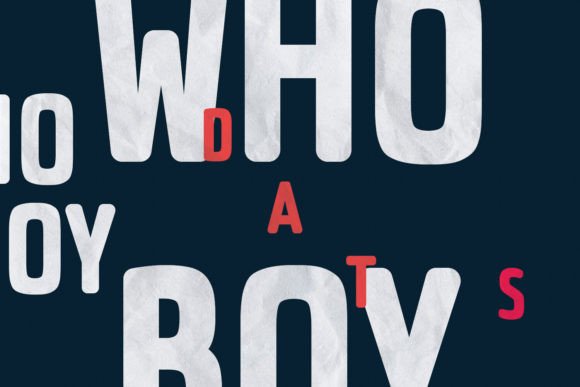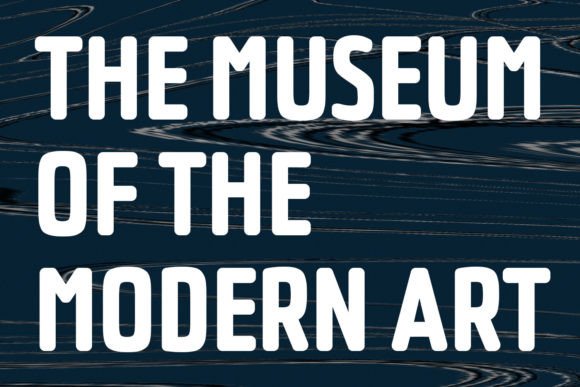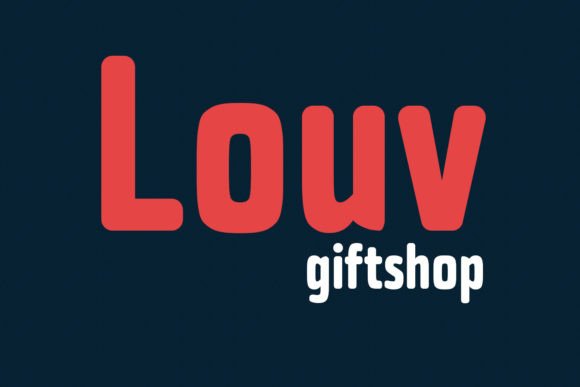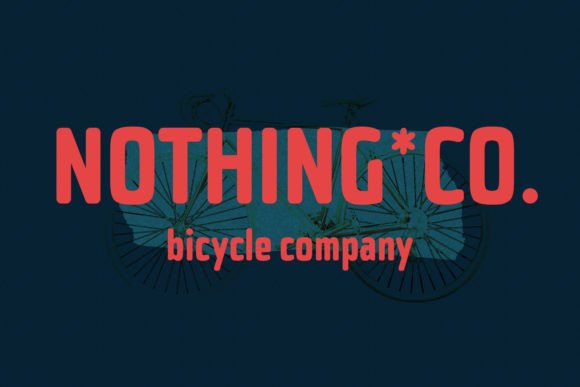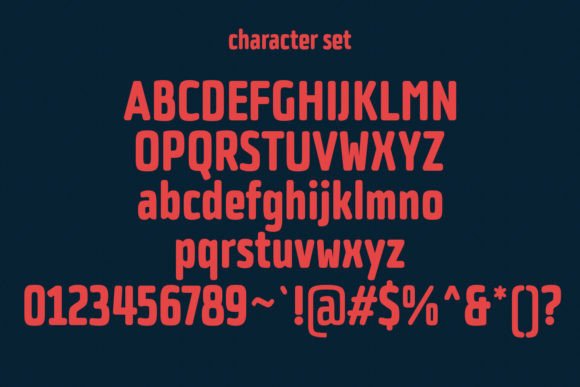
Introducing Garleik Font: The Ultimate Soft Sans Display Font for Creative Projects
Are you tired of using the same old fonts for your design projects? Look no further than Garleik Font, a soft sans display font that’s sure to take your creative work to the next level. With its medium stroke, fun character, and stylish ligatures, Garleik is the perfect choice for designers and crafters looking to add a touch of personality to their projects.
What Makes Garleik Font So Special?
Garleik Font is a unique and versatile font that’s designed to help you create stunning visual content. Here are just a few of the features that make it stand out:
- Soft Sans Design: Garleik has a soft and rounded sans serif design that’s perfect for creating friendly and approachable visual content.
- Medium Stroke: The medium stroke of Garleik gives it a fun and playful feel that’s ideal for a wide range of design projects.
- Ligatures and Stylistic: Garleik includes a range of ligatures and stylistic alternatives that allow you to add an extra layer of creativity to your work.
- Multilingual Support: With support for over 100 languages, Garleik is the perfect choice for designers and crafters working on international projects.
What Can You Use Garleik Font For?
Garleik Font is an incredibly versatile font that can be used for a wide range of design projects, including:
- Logo Design: Garleik’s unique and stylish design makes it perfect for creating memorable and effective logos.
- Social Media: Use Garleik to create eye-catching social media graphics, posts, and stories that will help you stand out from the crowd.
- Movie Titles: Garleik’s bold and stylish design makes it perfect for creating movie titles, taglines, and other cinematic content.
- Books Titles: Use Garleik to create stunning book titles, headings, and other typographic elements that will help your book stand out.
- Short and Long Text: Garleik is suitable for both short and long text, making it perfect for use as a primary or secondary font.
Pairing Garleik Font with Other Fonts
One of the best things about Garleik Font is its versatility and compatibility with other fonts. Here are a few suggestions for pairing Garleik with other fonts:
- Script Fonts: Pair Garleik with a script font for a stylish and elegant look that’s perfect for titles, headings, and other typographic elements.
- Serif Fonts: Combine Garleik with a serif font for a bold and contrasting look that’s ideal for creating visual interest and hierarchy.